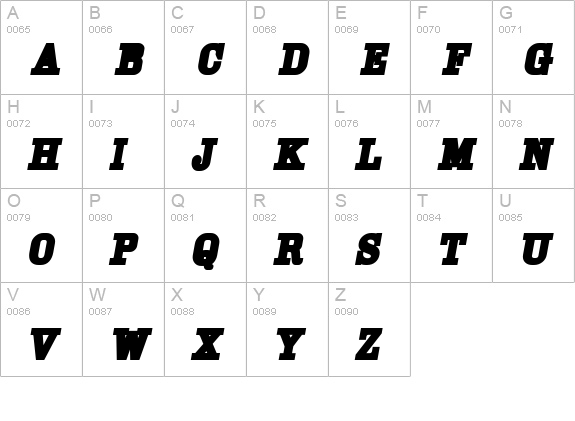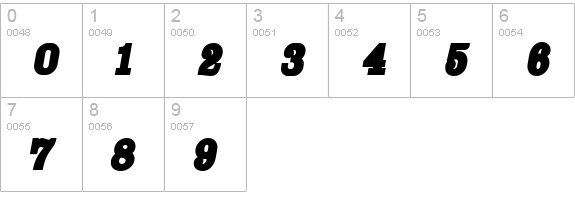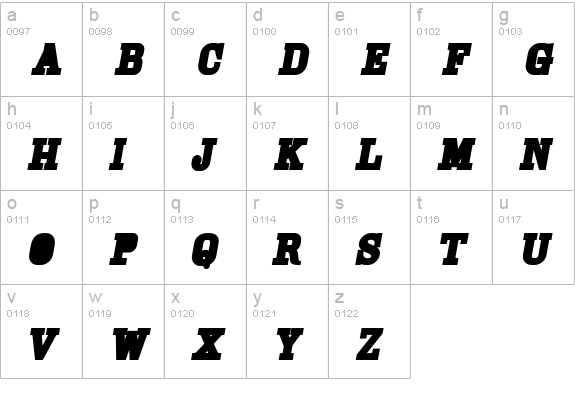
Cam ExtraBoldOblique Font Details
Cam ExtraBoldOblique font is a stunning display typeface that exudes strength and style. With its bold and slanted design, this font is perfect for making a bold statement in your designs. The sleek curves and sharp angles of Cam ExtraBoldOblique give it a modern and dynamic look that is sure to capture attention. What's even better is that Cam ExtraBoldOblique font is available for free download at FontsMarket.com. This means you can easily add this eye-catching font to your collection without any cost. Whether you're designing posters, logos, or any other creative project, Cam ExtraBoldOblique will help you stand out and make a lasting impression. Don't miss out on this fantastic free font – download it now and elevate your designs!